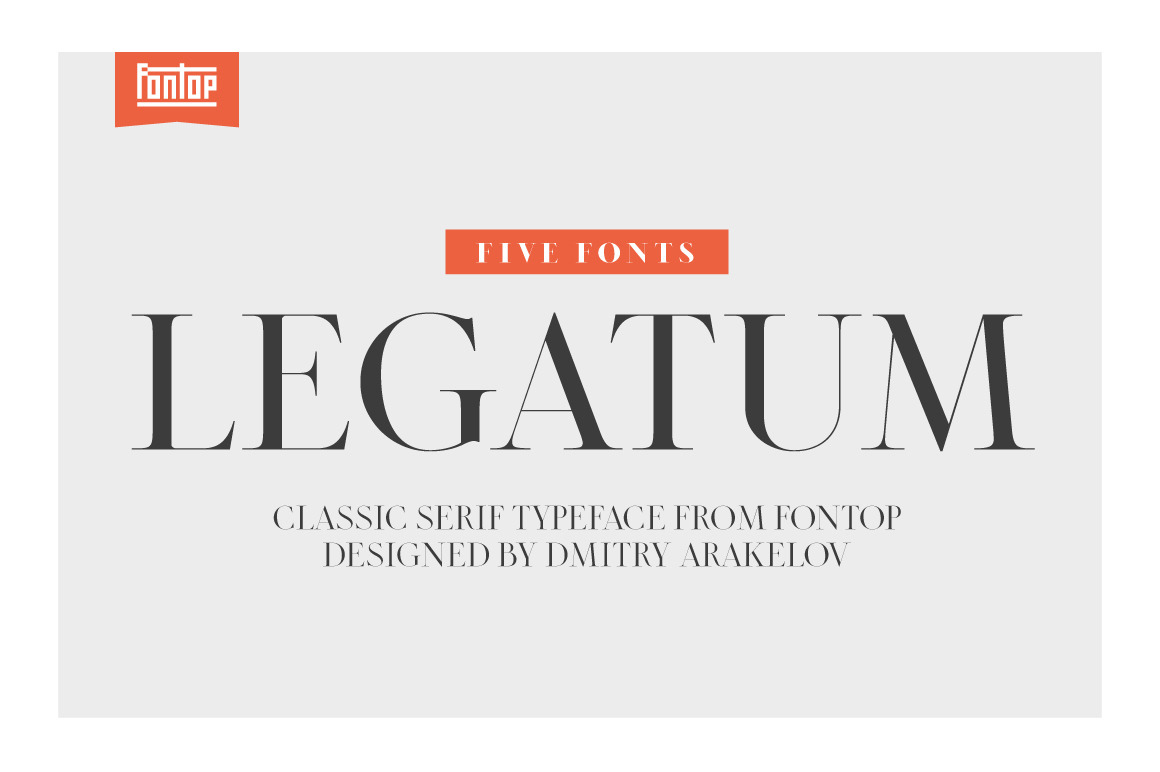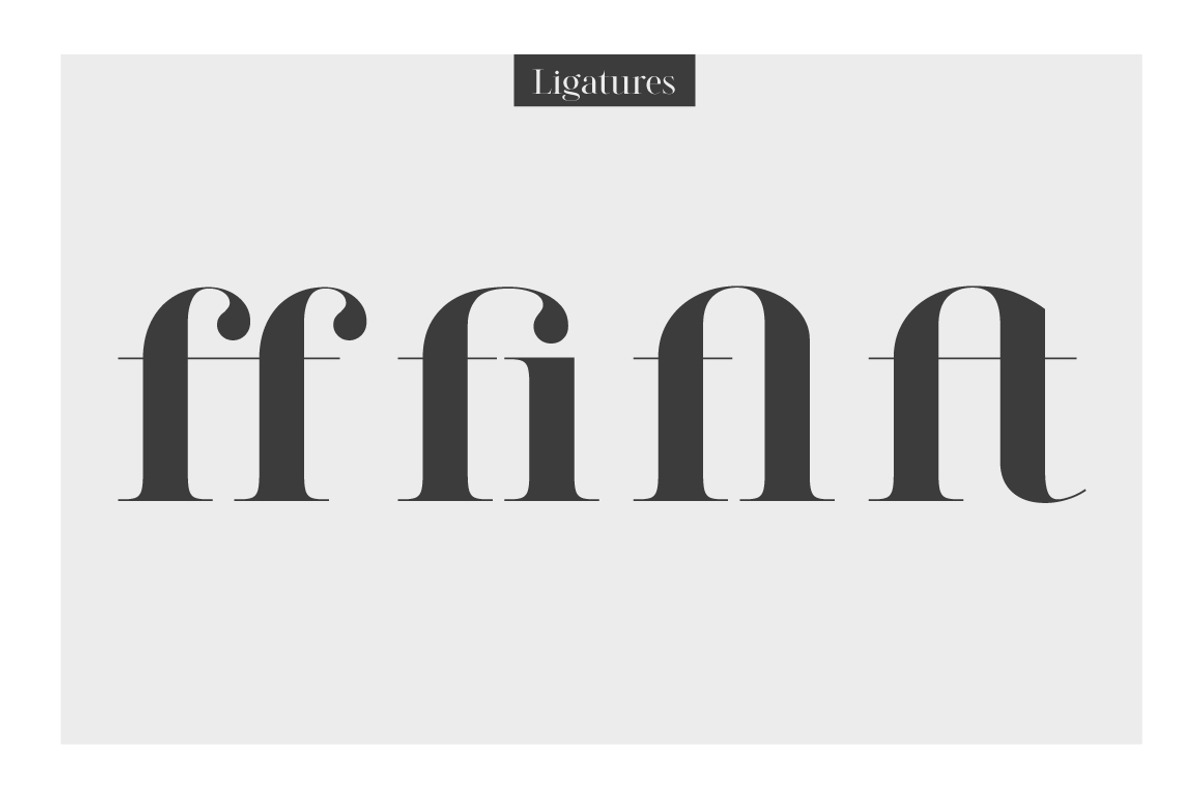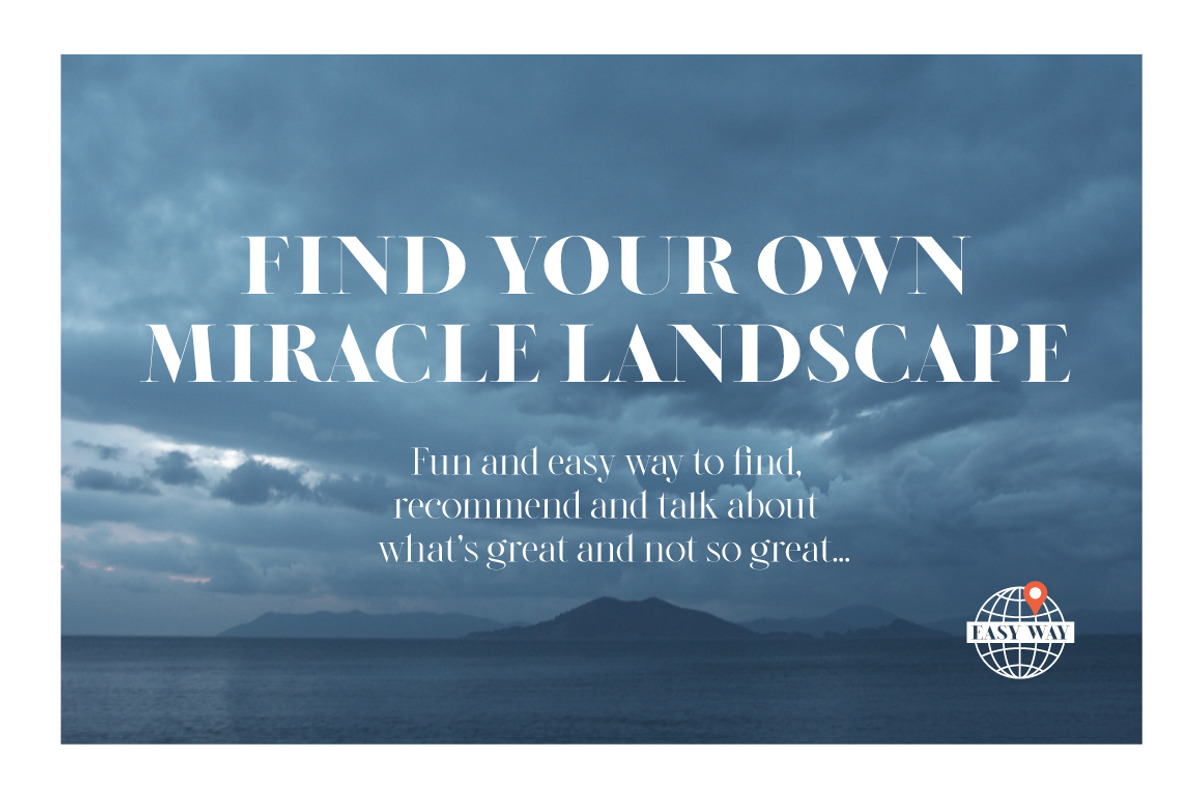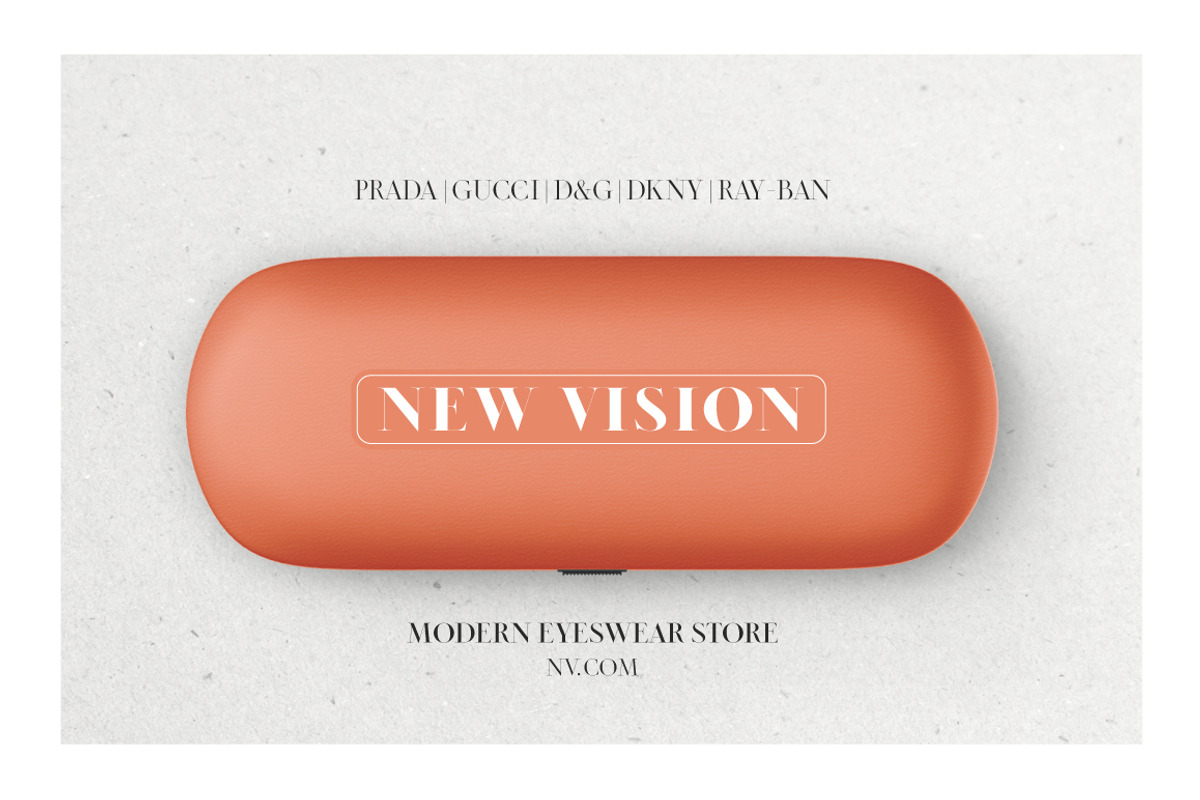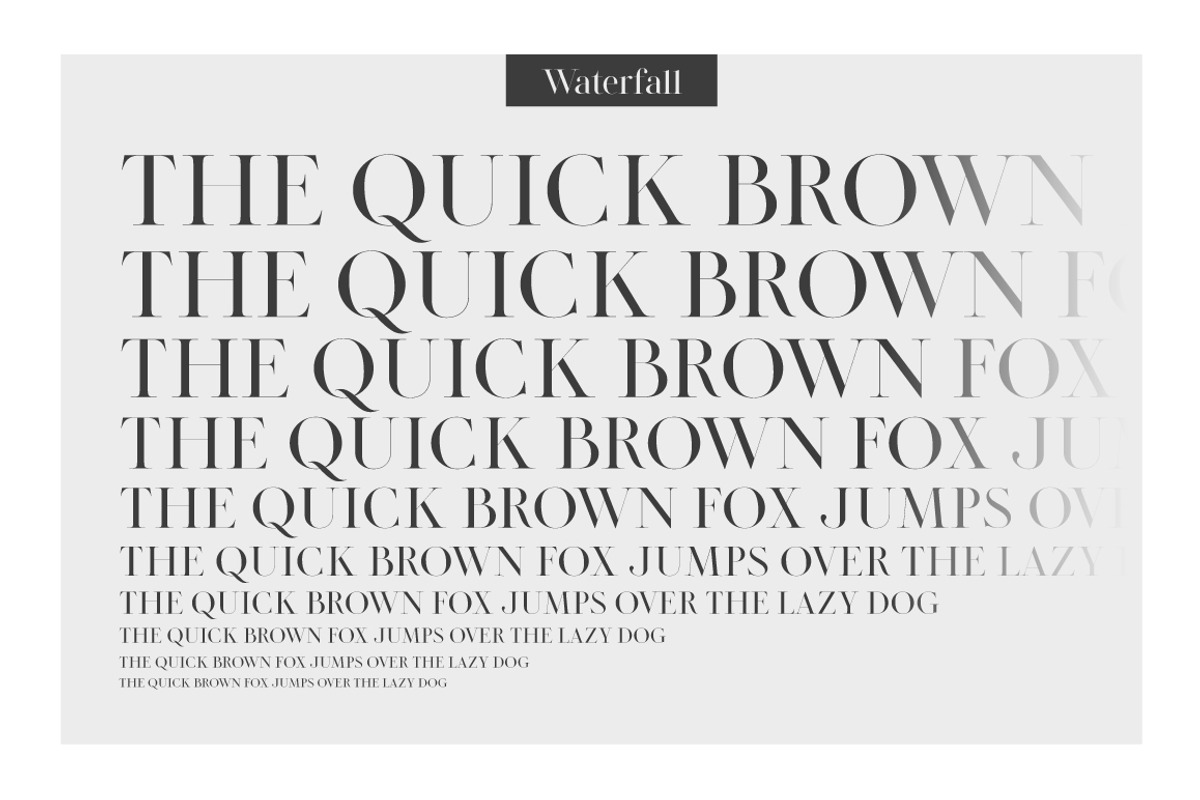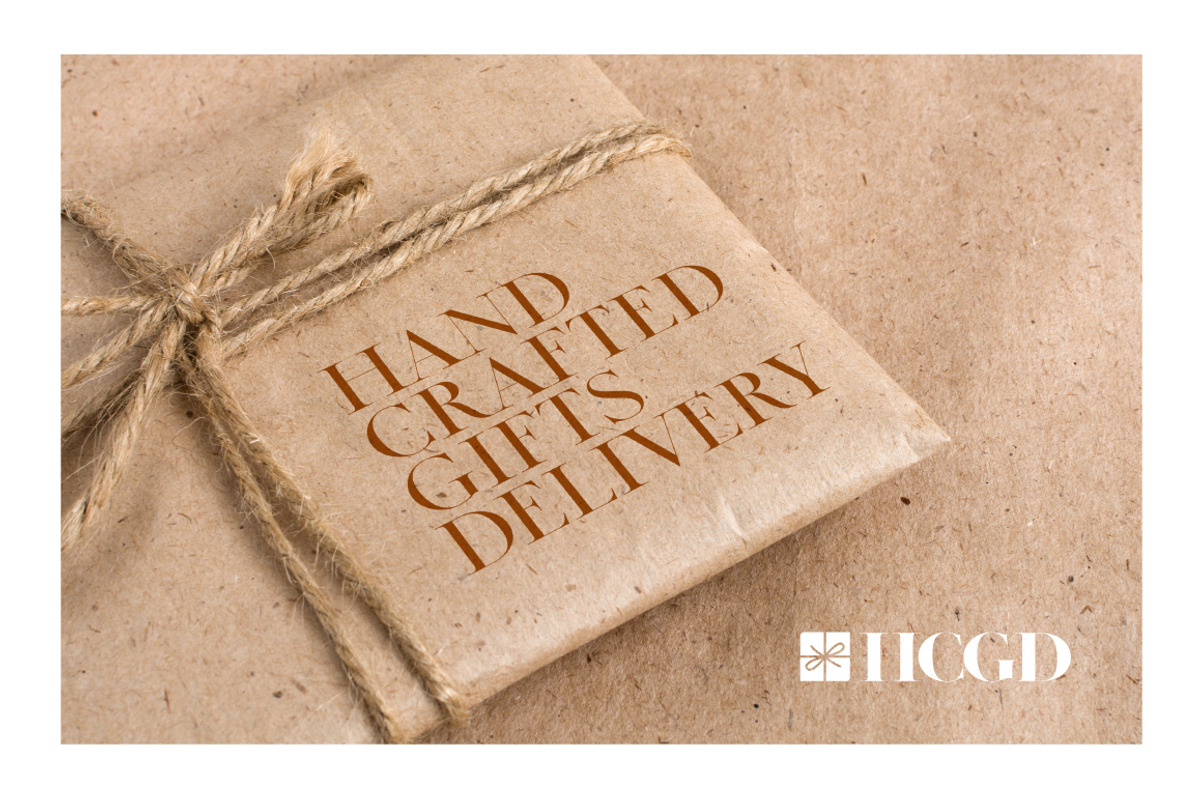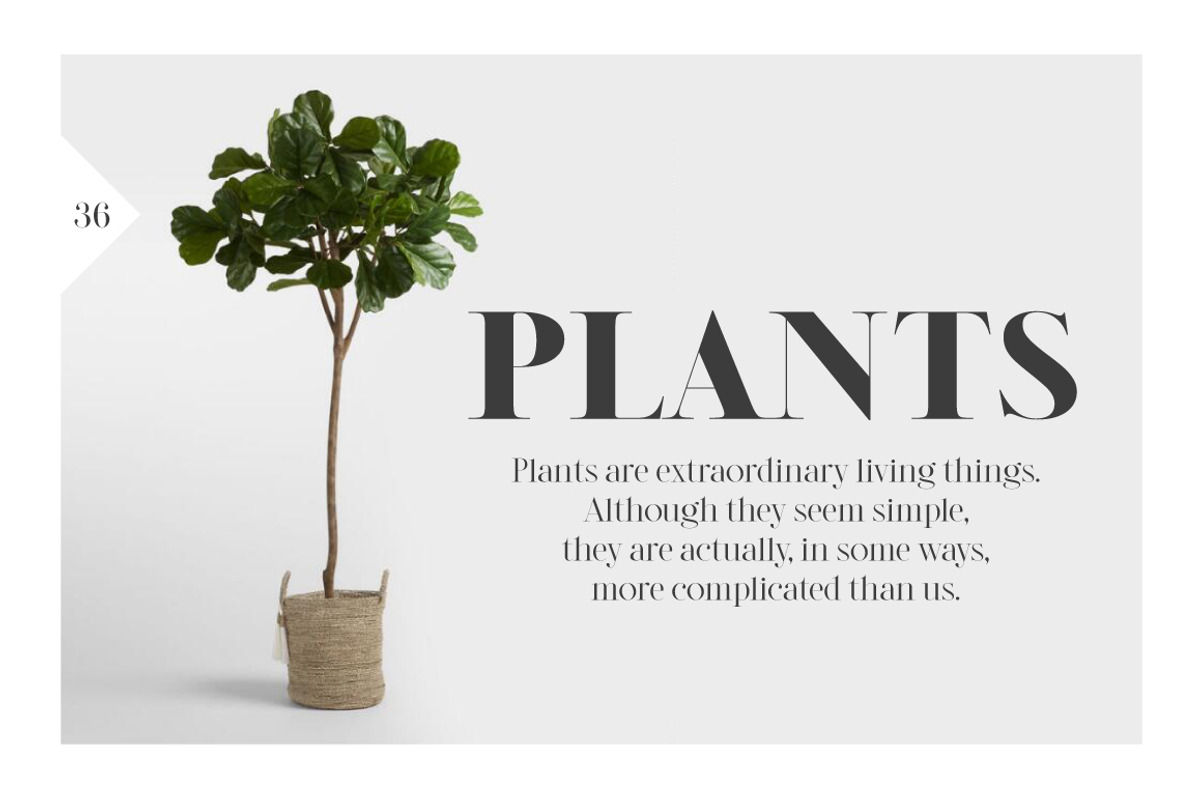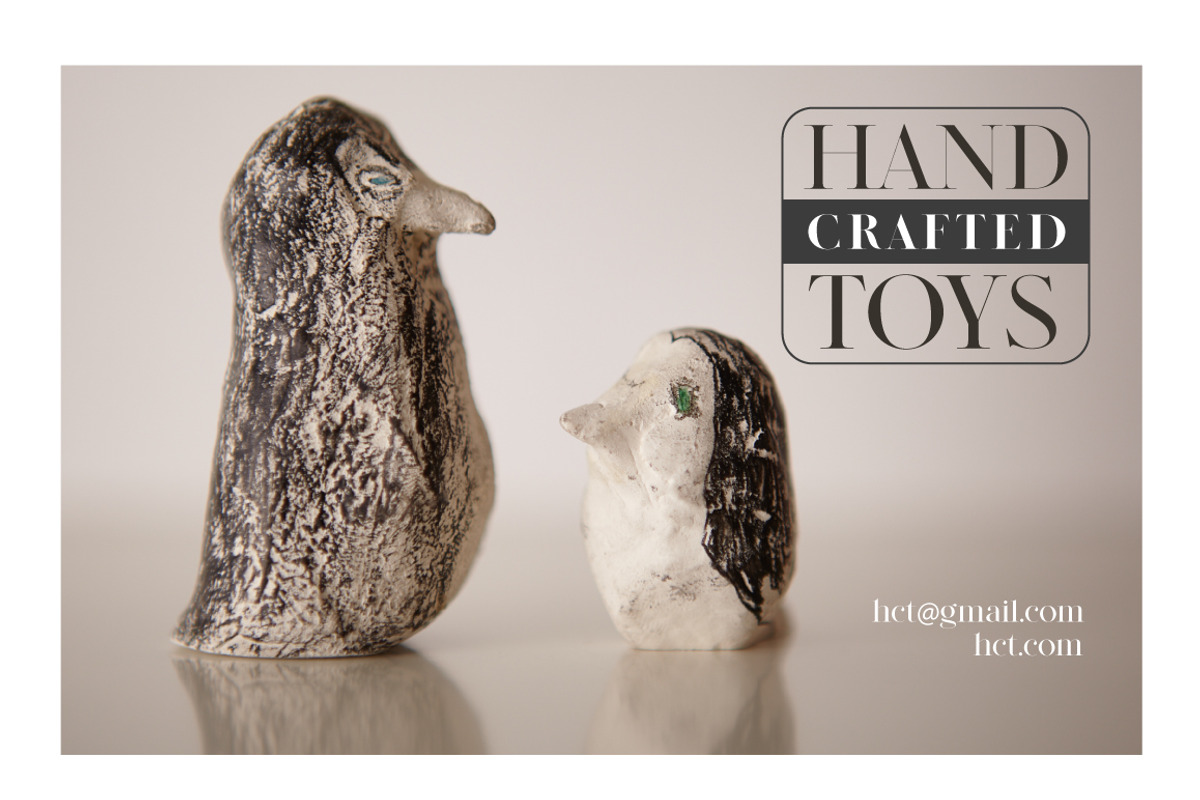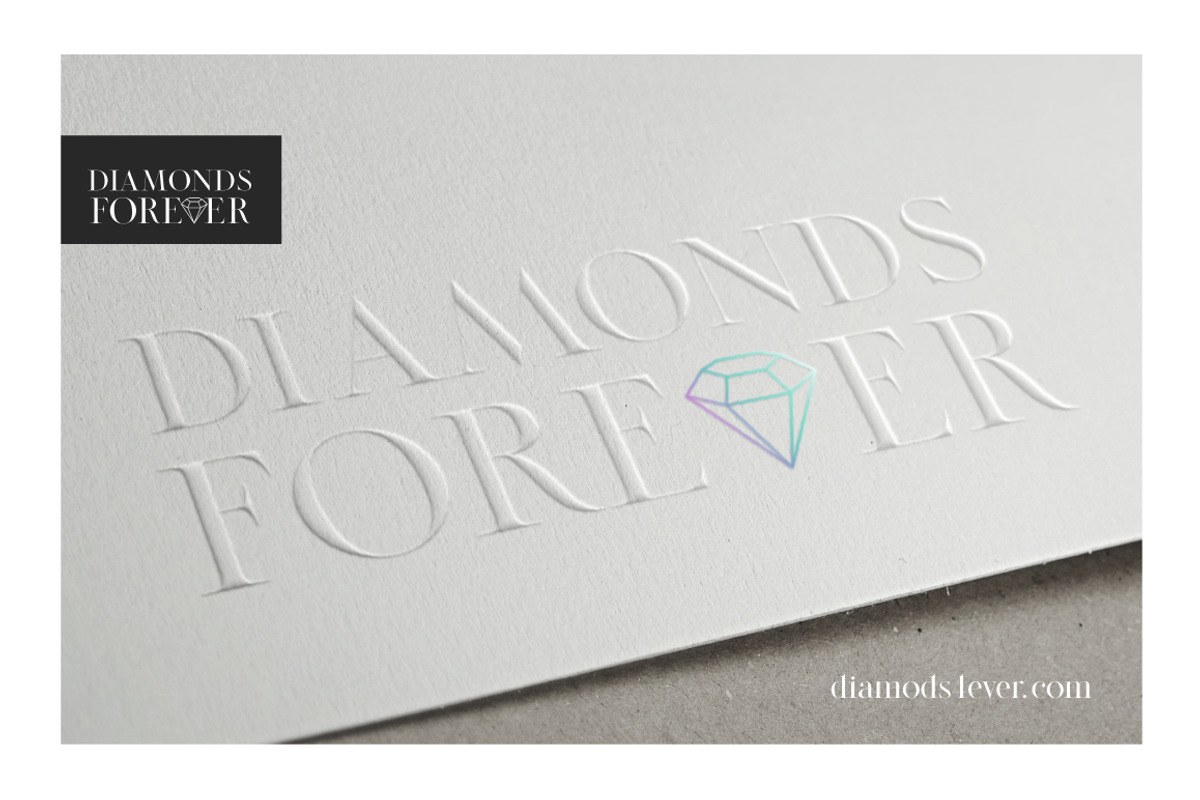
Legatum font family (5 fonts)
Check the new look at a classical serif Roman font. The LEGATUM font family is inspired by Roman sycamore, columns and architectural details of the Eternal City. The shapes of the letters and perfectly balanced high-contrast makes each sign look elegant, sophisticated and eye-catching. Looks great in headlines of posters, text in magazines, books. Also can be used in logos and blog posts.
Each font has Latin multilingual support as well as uppercase letters, lowercase letters, numbers and basic punctuations and all necessary ligatures and alternates.